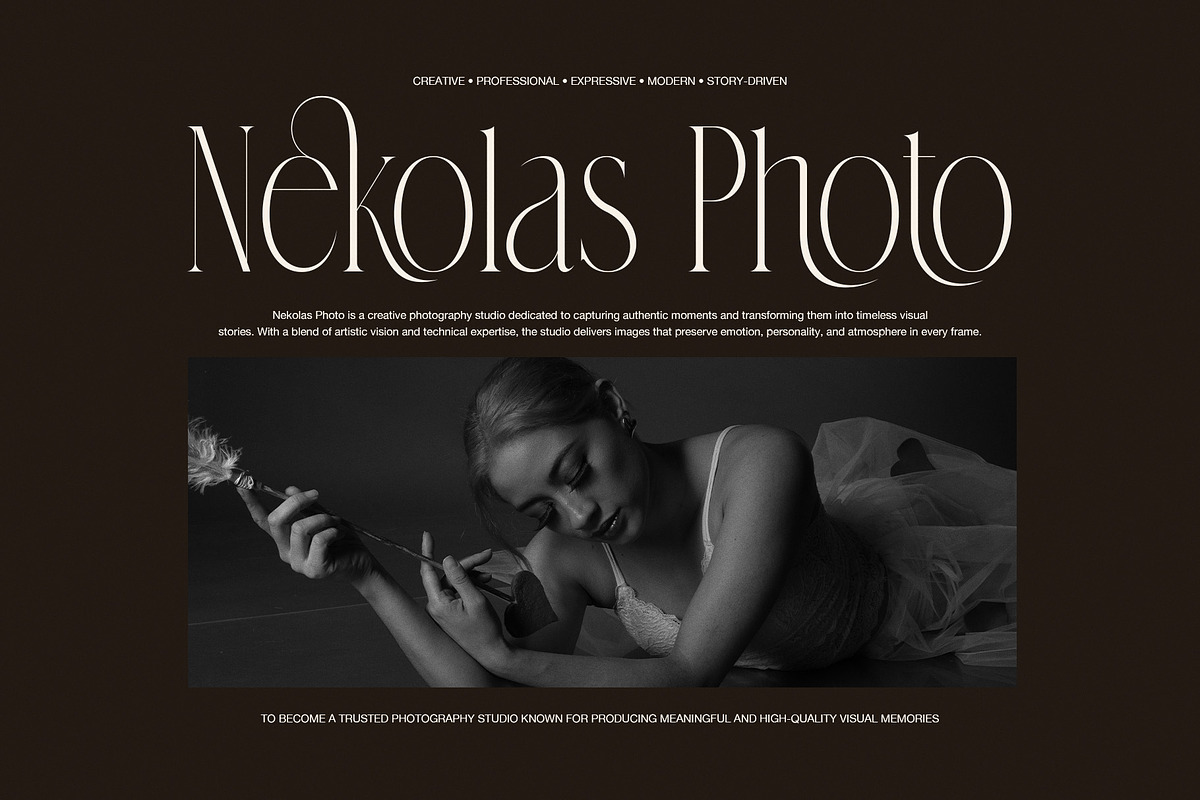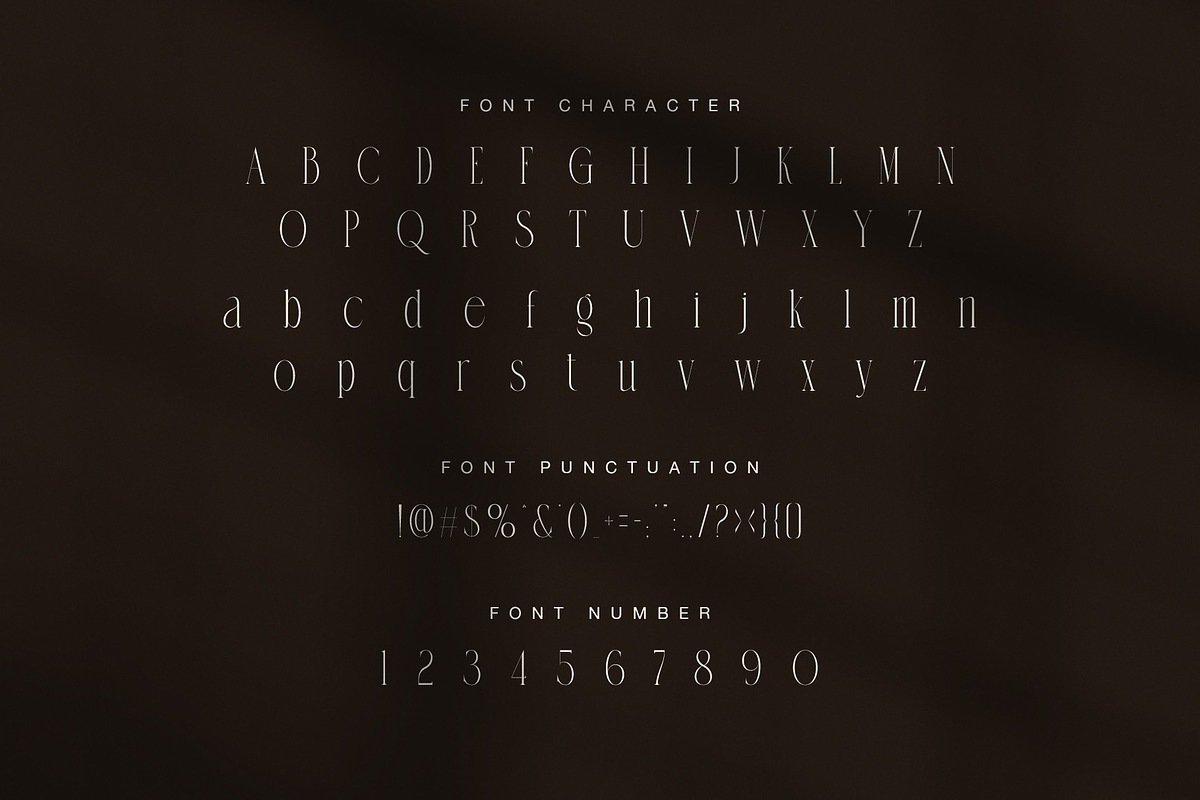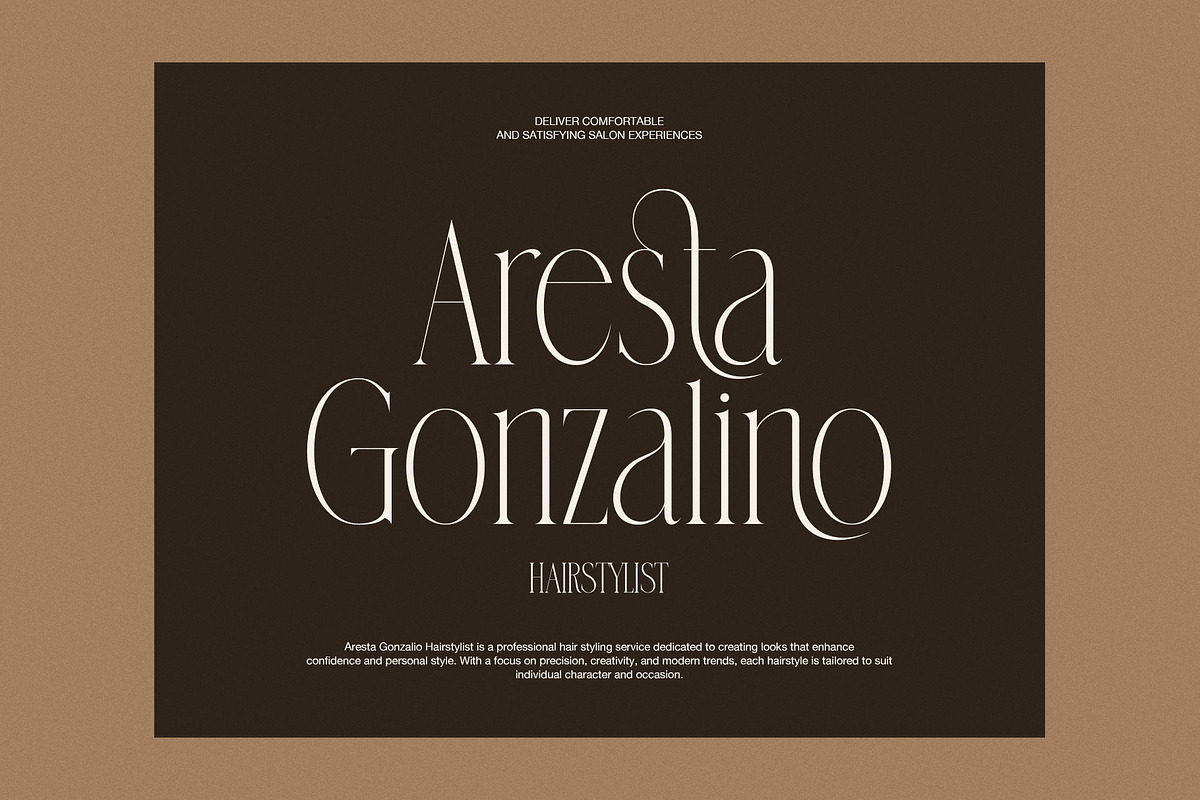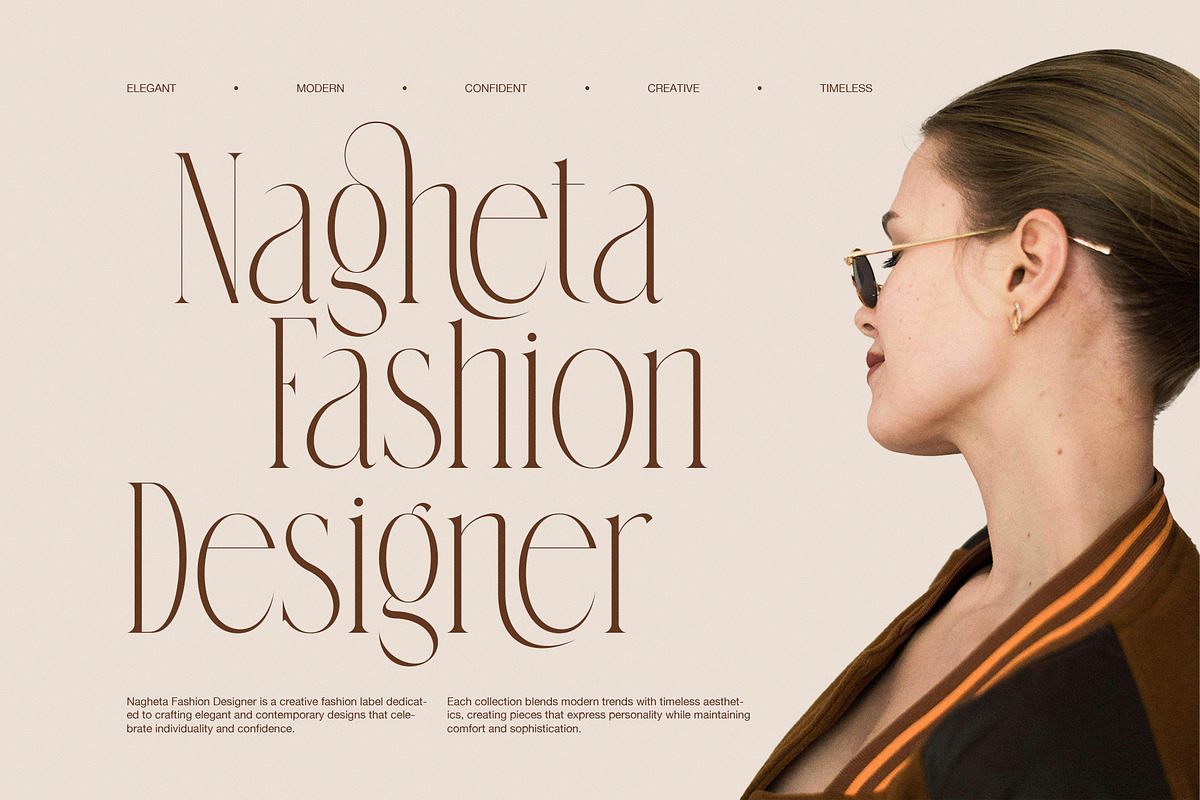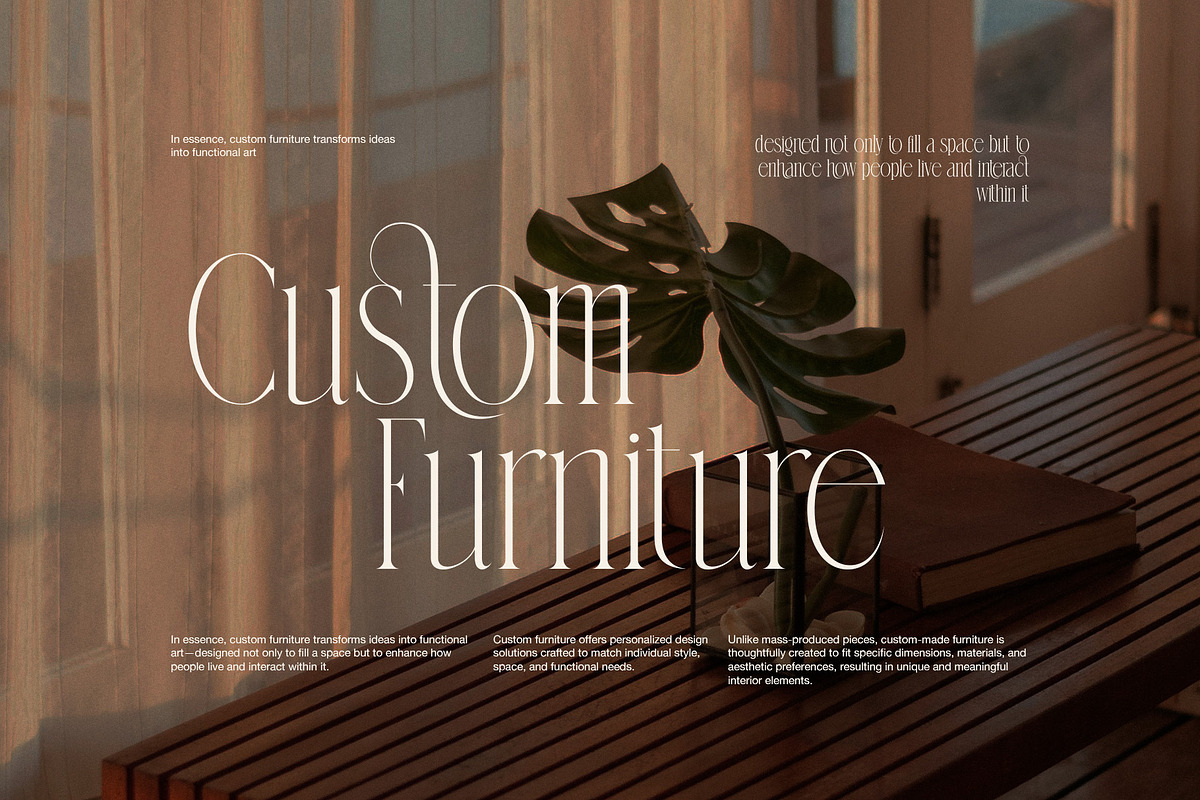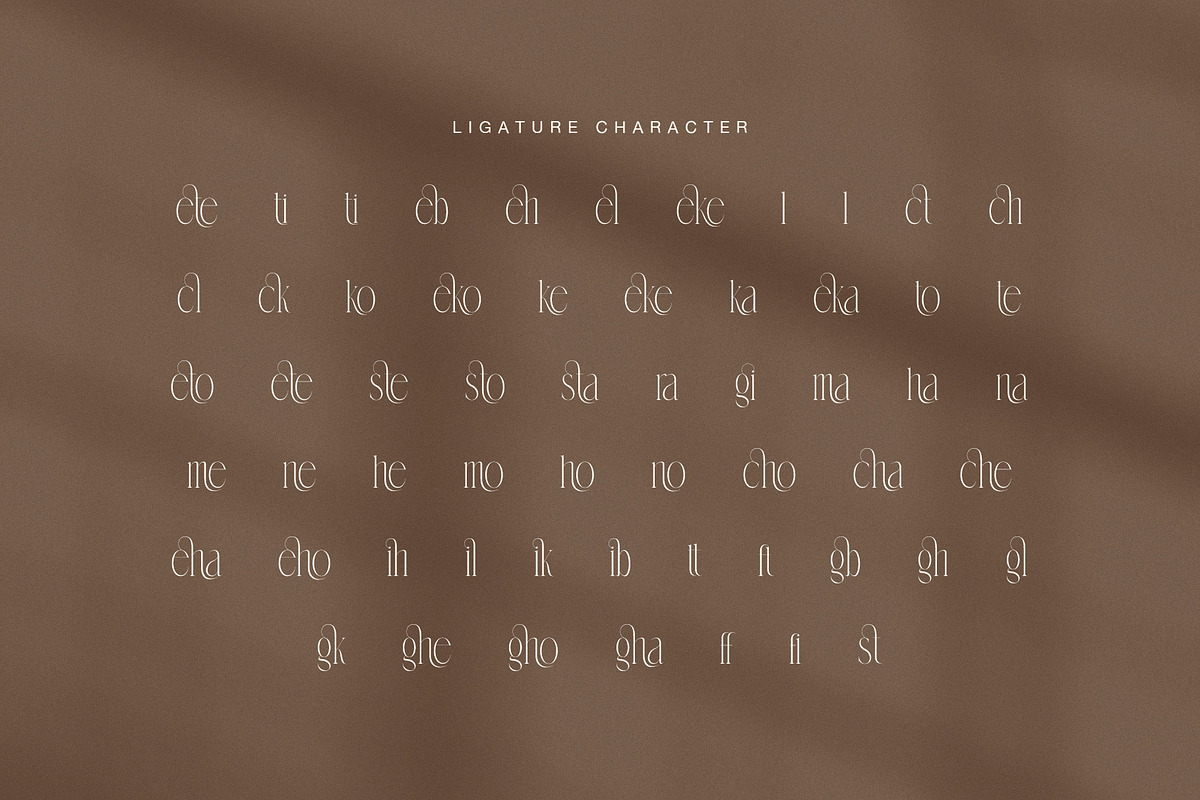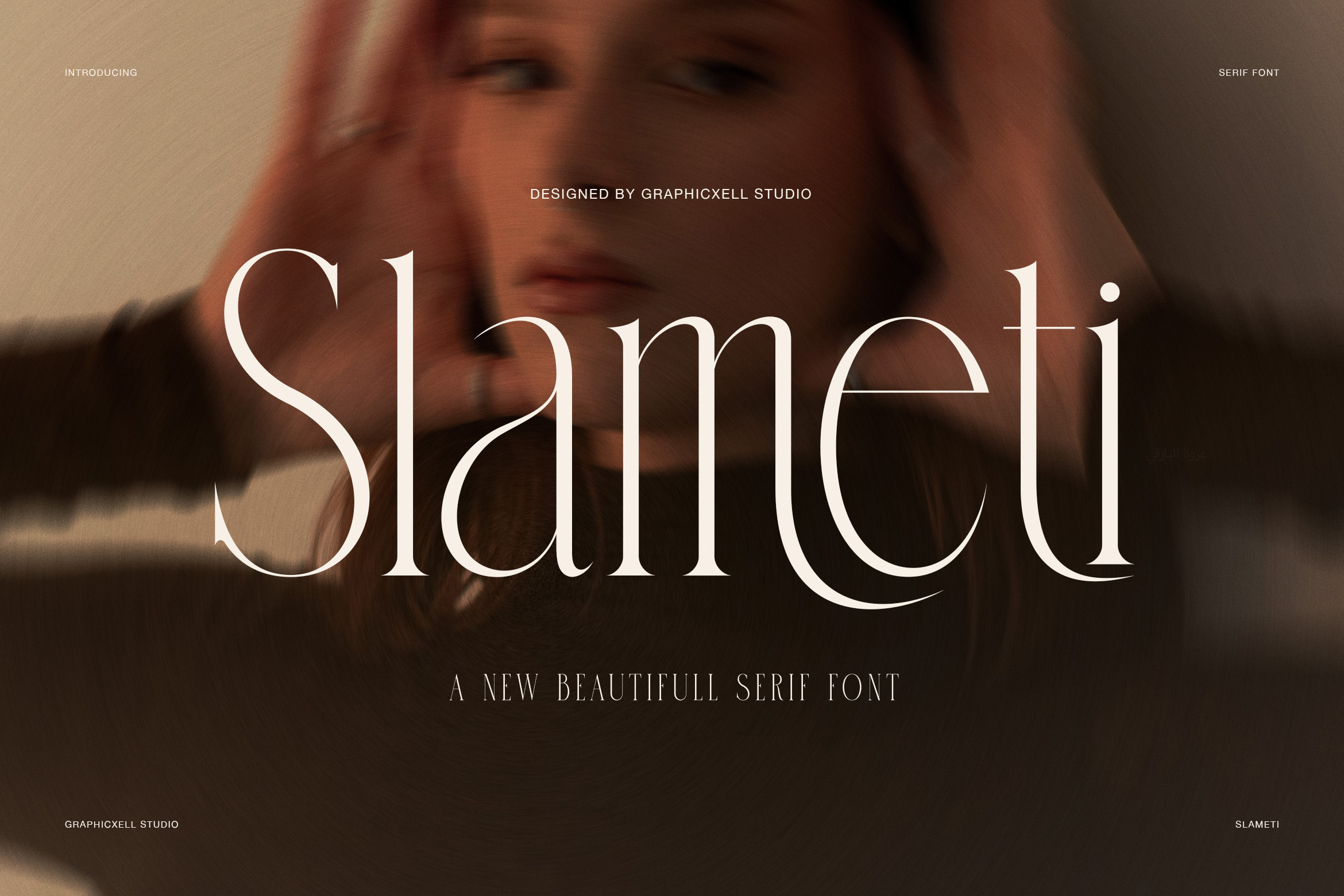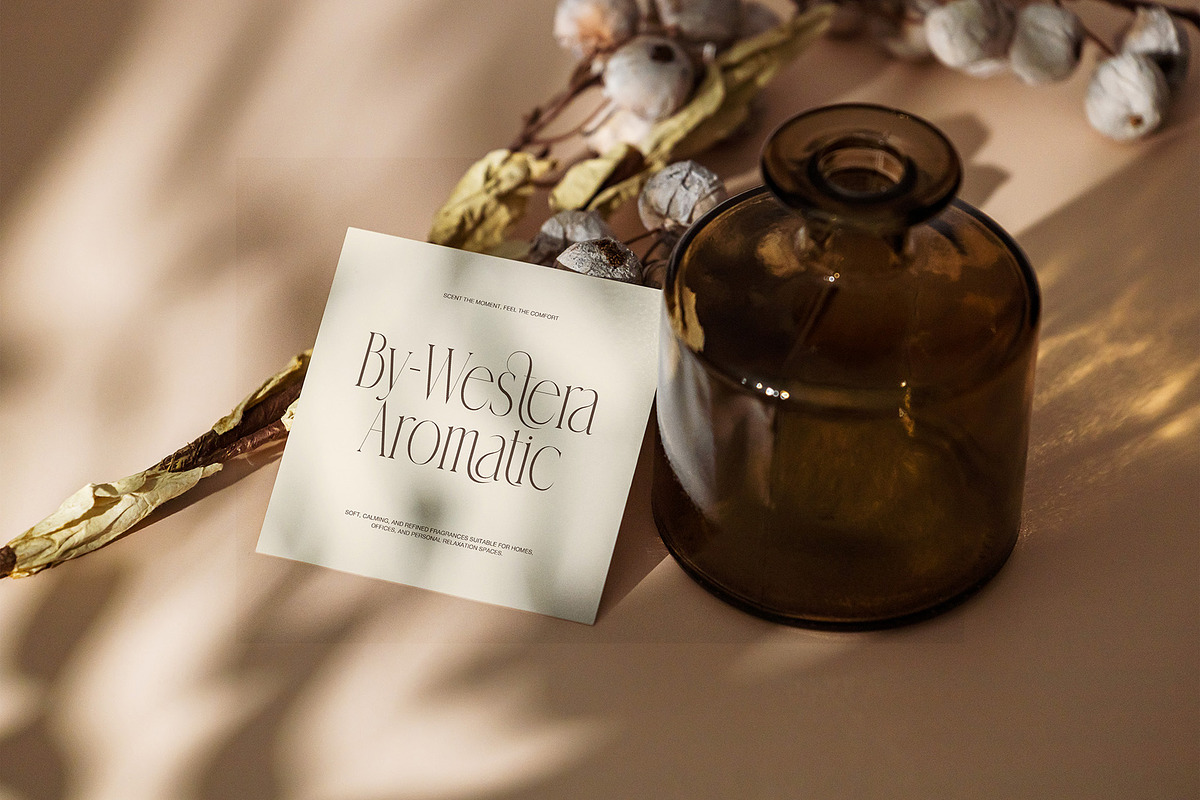
Slameti Elegant Serif Font
Slameti Elegant Serif Font is a stylish display serif with a soft luxury feel. It brings together thin strokes, tall letterforms, and smooth curves, so it looks refined, modern, and graceful. At first glance, the font feels clean and calm. However, its shape also carries a strong fashion mood that makes every word stand out.
The letter design is slim, high, and balanced. In addition, the contrast between the thick and thin parts adds a polished look. Several characters have flowing curves that feel gentle and artistic. Because of that, Slameti works very well for brands that want to look elegant without losing clarity.
This font also includes beautiful ligatures that make text flow in a more natural way. As a result, brand names, short headlines, and logo text look smoother and more custom. The ligature set adds charm, while the clean serif base keeps the font easy to use. Therefore, Slameti is a strong choice for both luxury and modern design work.
From the preview, Slameti fits many visual themes. It looks beautiful in fashion branding, perfume labels, salon promotions, photography layouts, furniture branding, and elegant product packaging. Moreover, it suits editorial titles, social media posts, boutique logos, business cards, and lifestyle presentations. Its soft and classy tone helps designs feel premium, warm, and memorable.
Main Features
- Elegant serif style with a modern feel
- Tall and slim letterforms
- Smooth ligatures for refined text flow
- Clean shapes with graceful curves
- Ideal for logos, branding, and headlines
- Great for fashion, beauty, lifestyle, and editorial use
Why Designers Love It
Slameti gives words a polished and expressive voice. Even so, it does not look heavy or hard to read. The clean structure keeps it neat, while the curves add personality. For that reason, it can work across many luxury and creative projects.
If you need a serif font for premium branding, stylish headlines, or elegant packaging, Slameti Elegant Serif Font is a beautiful option. It helps your work feel more chic, more modern, and more memorable. So, whether you design for fashion, beauty, photography, furniture, or fragrance brands, this font can create a lasting impression.